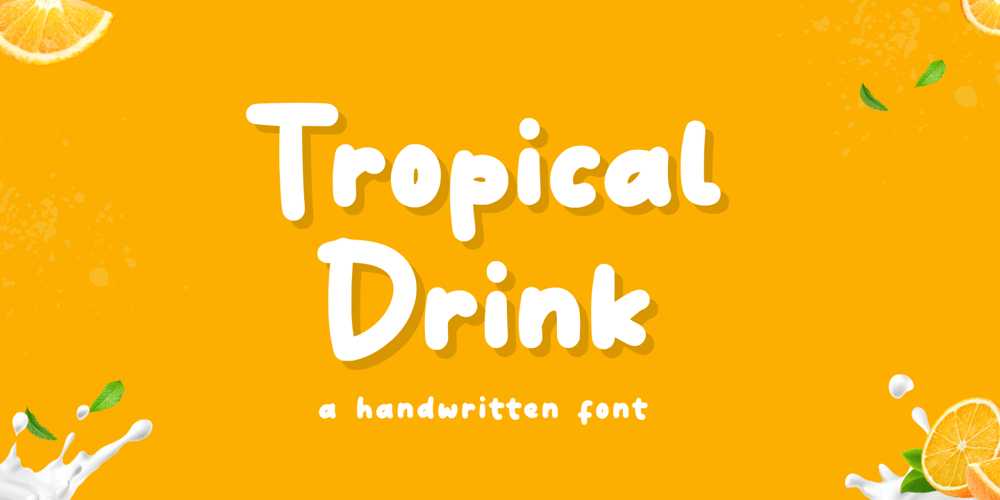
Tropical Drink Font Family was designed by Muhamad Yusron Billah and published by Sronstudio. Tropical Drink contains 1 styles and family package options. Tropical Drink – Handwritten Font is a fun display Font font, this font Is perfect for product packaging, product designs, label, photography, watermark, special events, or anything.Features: Uppercase and lowercase letters Multilingual, numerals, and punctuation Thank You!